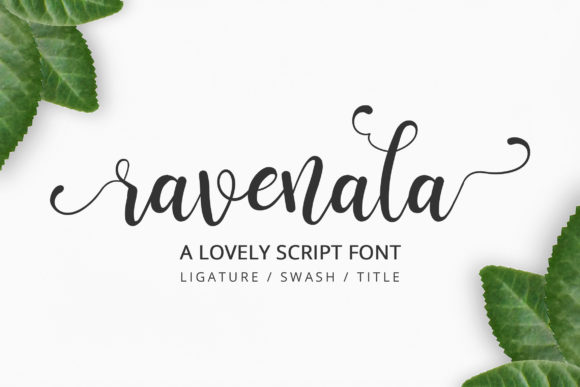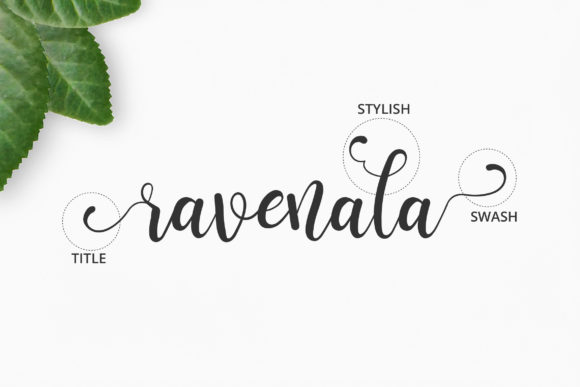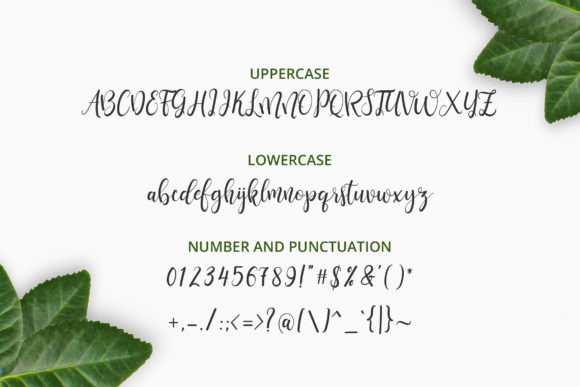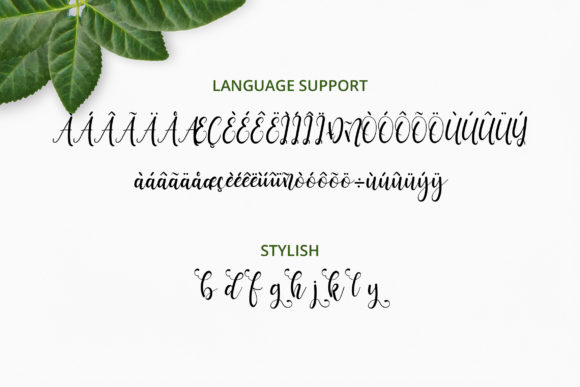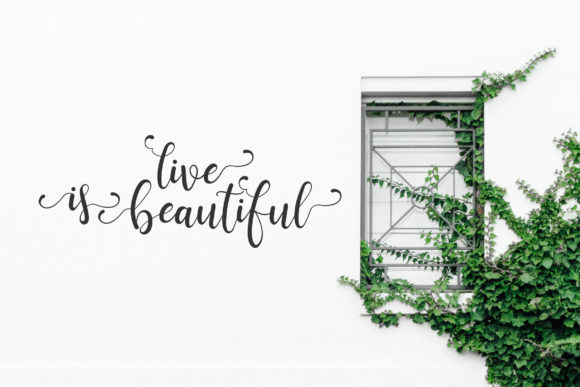
Ravenala is a playful and cute script that radiates authenticity. It features gorgeously light letters and swashes that feel both elegant and authentic.
This font is PUA encoded which means you can access all of the magical glyphs and swashes with ease! It also features a wealth of special features including alternate glyphs and ligatures.